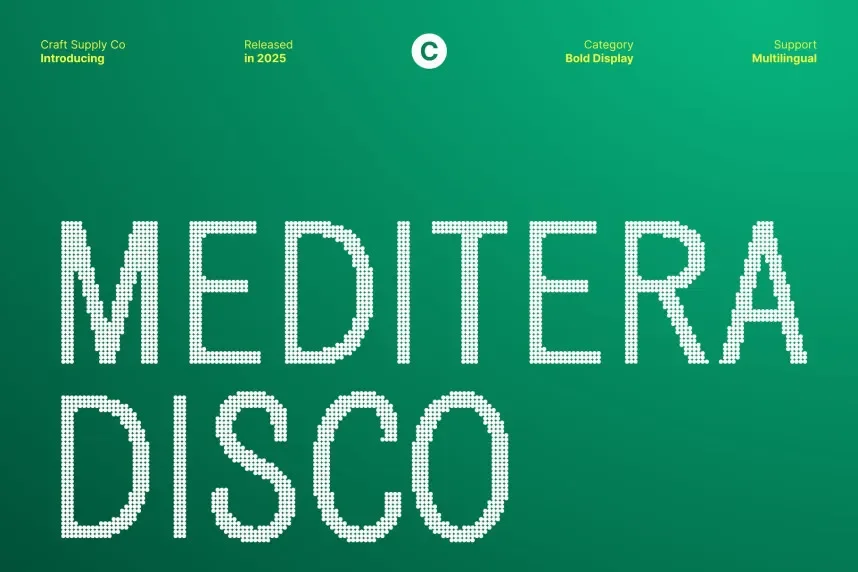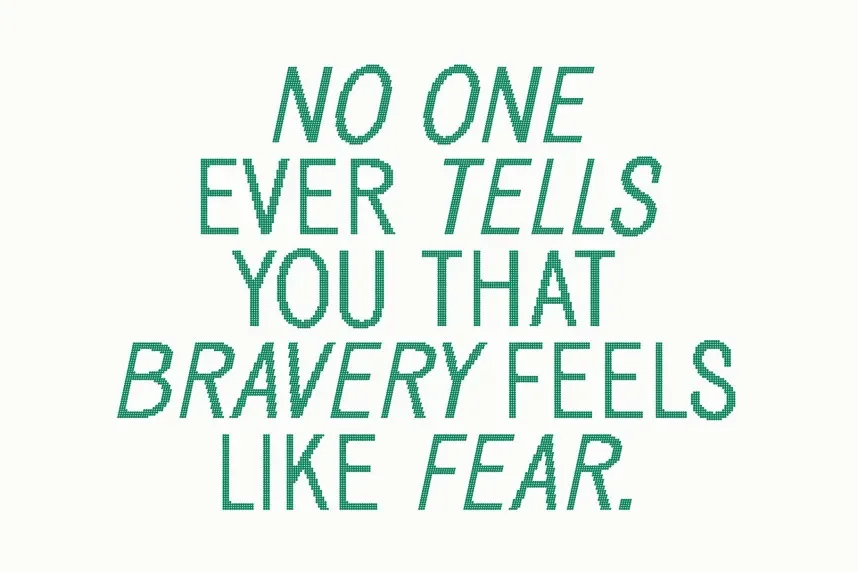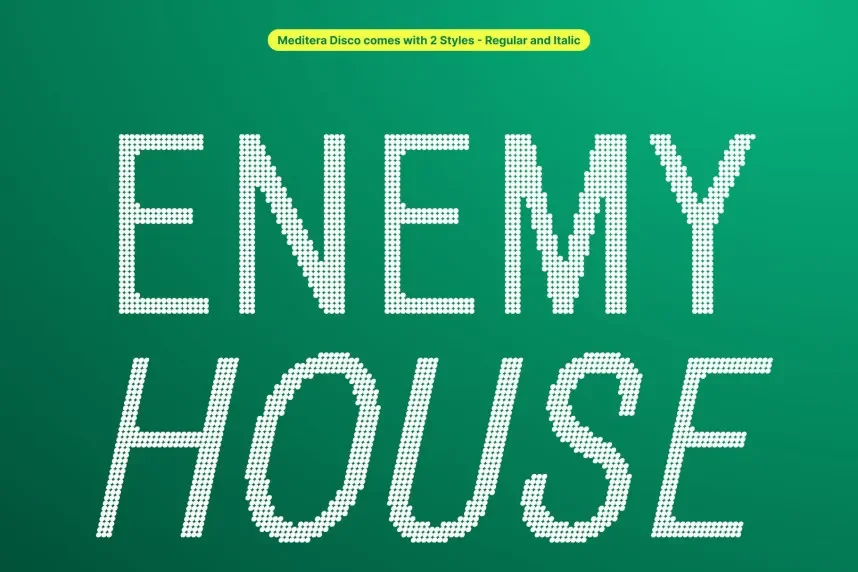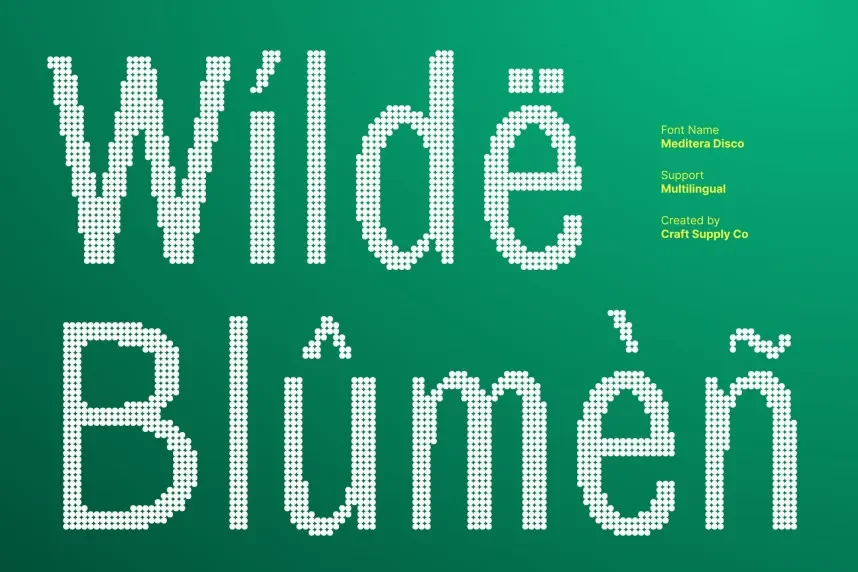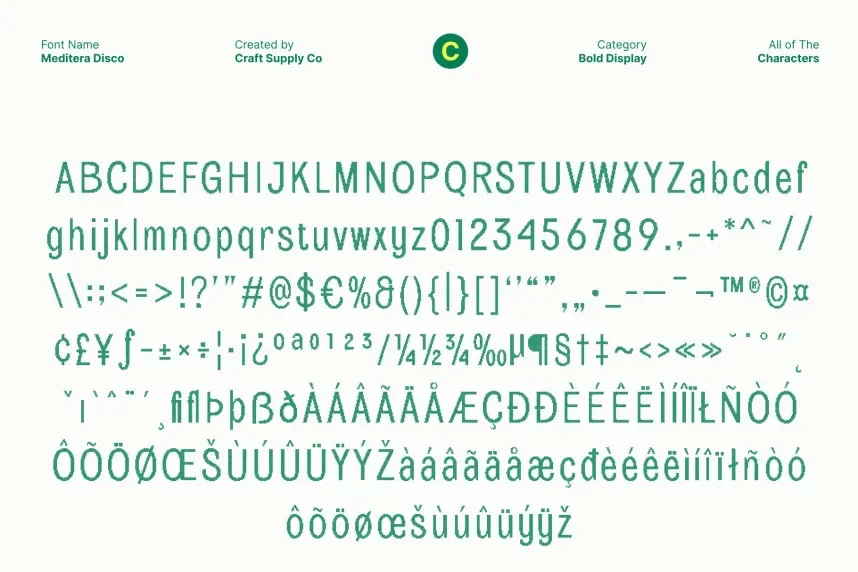
Meditera Disco Font is a retro-inspired typeface with a strong, geometric design and smooth curves. Its distinctive style makes it perfect for vibrant branding, social media posts, and event graphics that need to capture attention.
Best used for event branding, promotional designs, and logos, Meditera Disco Font pairs well with simple sans-serif fonts for readability. Available in TTF and OTF formats, it includes a commercial-use license. Always check the licensing for commercial use.